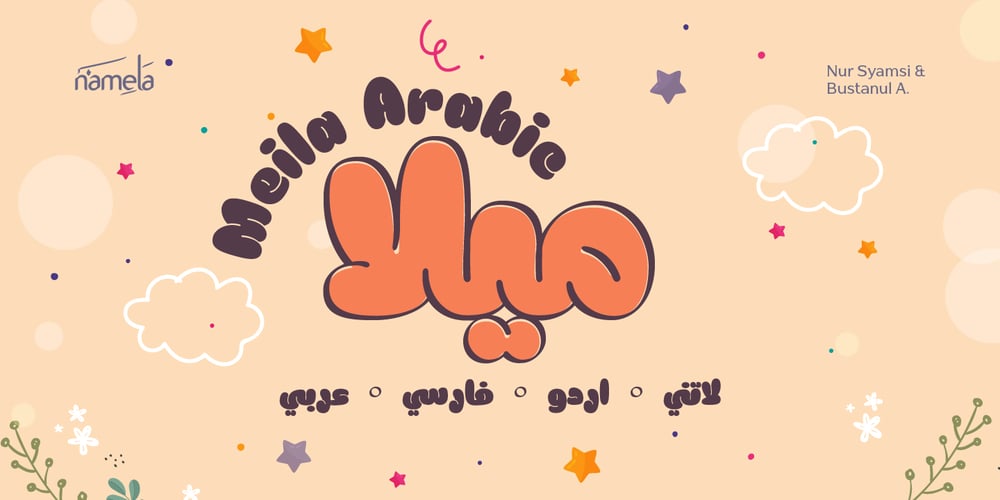
Meila Arabic Font Family was designed by Nur Syamsi, Bustanul Arifin and published by NamelaType. Meila Arabic contains 7 styles and family package options. Meila Arabic is sibling of Meila with the addition of Arabic glyphs, for Arabic, Urdu, and Farsi.Still carrying a childish character with a cheerful font, visually featuring bold and cute characters. Meila has smooth lines on each side, especially on the outside, almost no sharp corners. On the inside there is only one line that functions as a counter space.